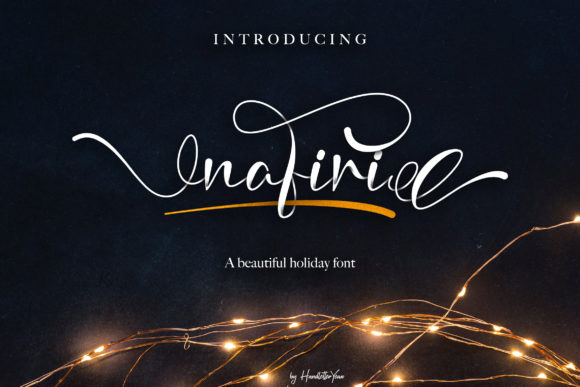
**Introducing Nafiri Script: The Font That Embodies the Magic of Christmas and Winter**
Step into a world of festive enchantment with Nafiri Script, an exquisite font family that evokes the spirit of Christmas and winter.
With its graceful, script-like strokes, Nafiri Script dances across your screen, capturing the warmth and joy of the holiday season. Each letter is a work of art, adorned with subtle flourishes and sweeping curves that evoke the magic of a winter wonderland.
Nafiri Script is more than just a font; it's a storyteller. It whispers tales of frosty mornings, twinkling lights, and the anticipation of gift-giving. It's the perfect choice for creating invitations, greeting cards, social media posts, and any other project that calls for a touch of holiday cheer.
Imagine your loved ones receiving a heartfelt message written in Nafiri Script, their eyes sparkling with delight as they read the words. Your invitations will stand out from the crowd, announcing your festive gathering in a way that's both elegant and inviting.
**Features That Will Make Your Projects Shine:**
- **Authentic Script Style:** Nafiri Script emulates the beauty and elegance of handwritten script, adding a personal touch to your designs.
- **Christmas and Winter Charm:** With its intricate details and flowing lines, Nafiri Script embodies the spirit of the holiday season, evoking feelings of warmth and nostalgia.
- **Versatile Applications:** This versatile font is perfect for a wide range of projects, including invitations, greeting cards, branding materials, and social media graphics.